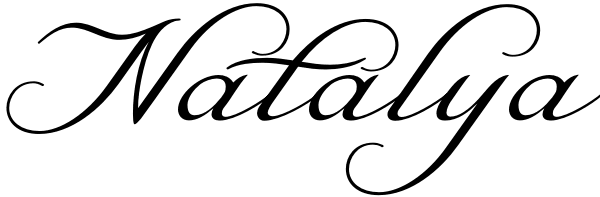
Natalya
Natalya is a flashy and rhythmic script. The script has more space between characters than most for better legibility, and the basis point for the ornate swirls is the golden ratio. This makes for an especially harmonious typeface with timeless...
Natalya Alternate Two
Natalya Alternate One
Natalya